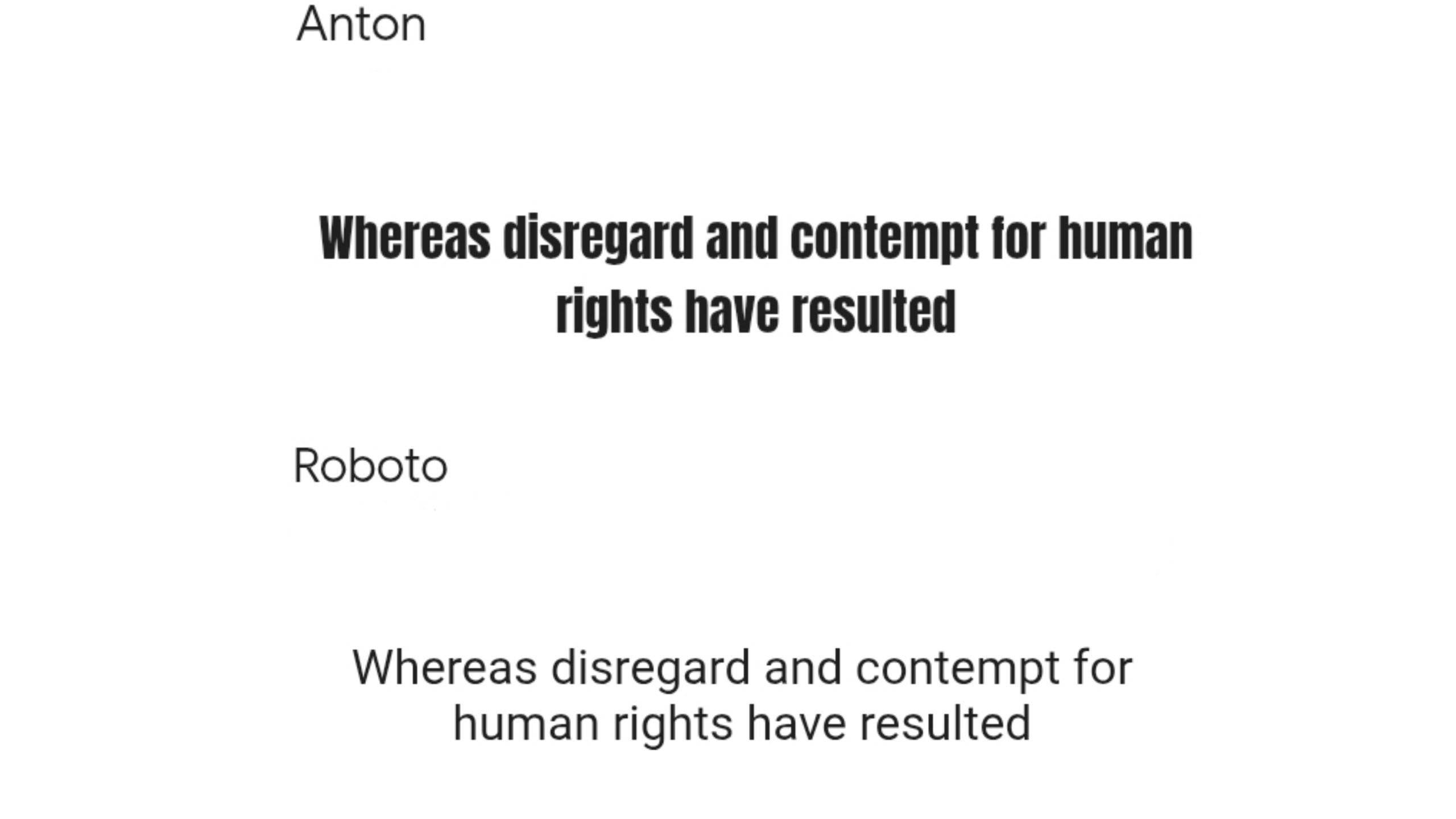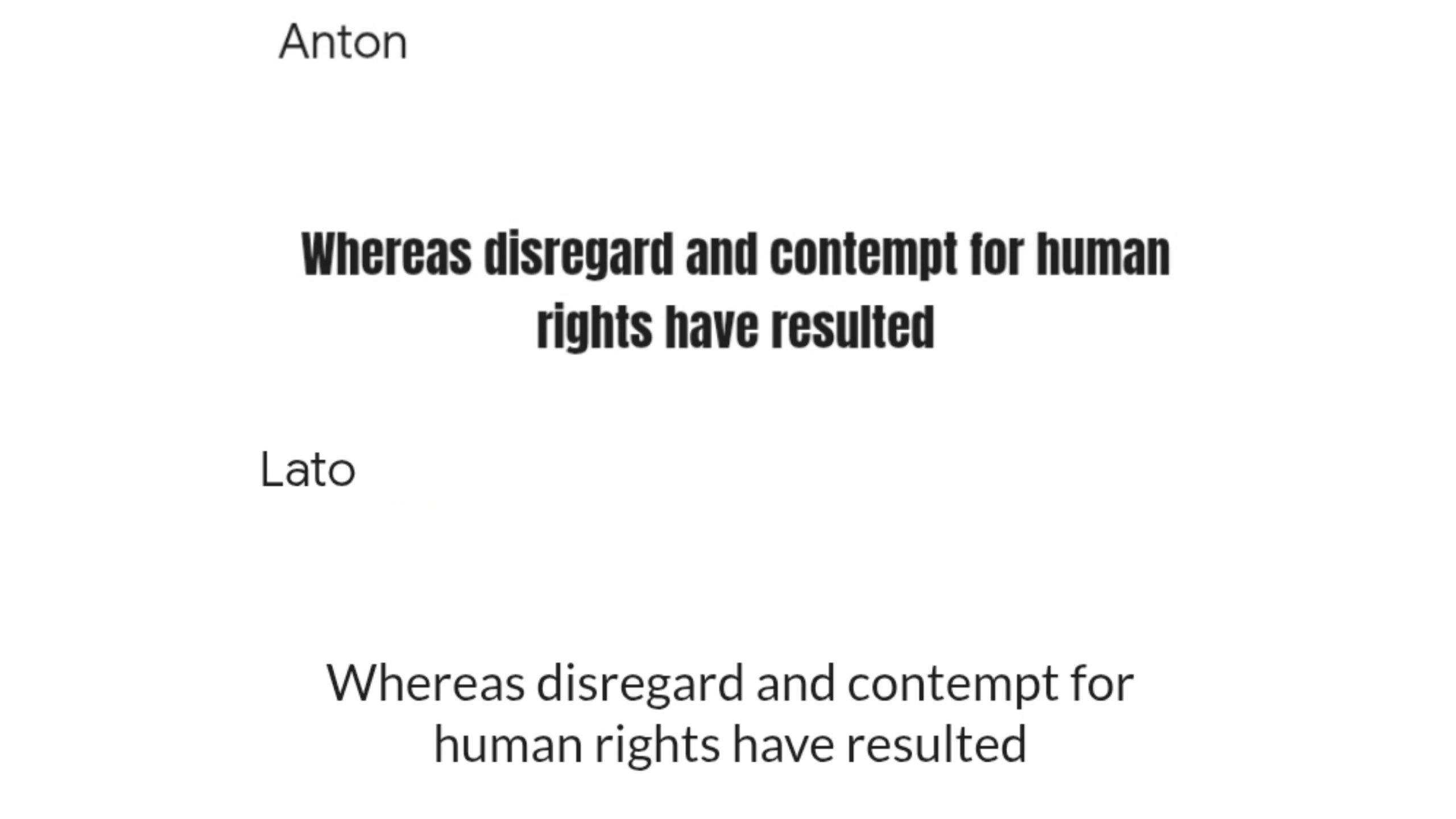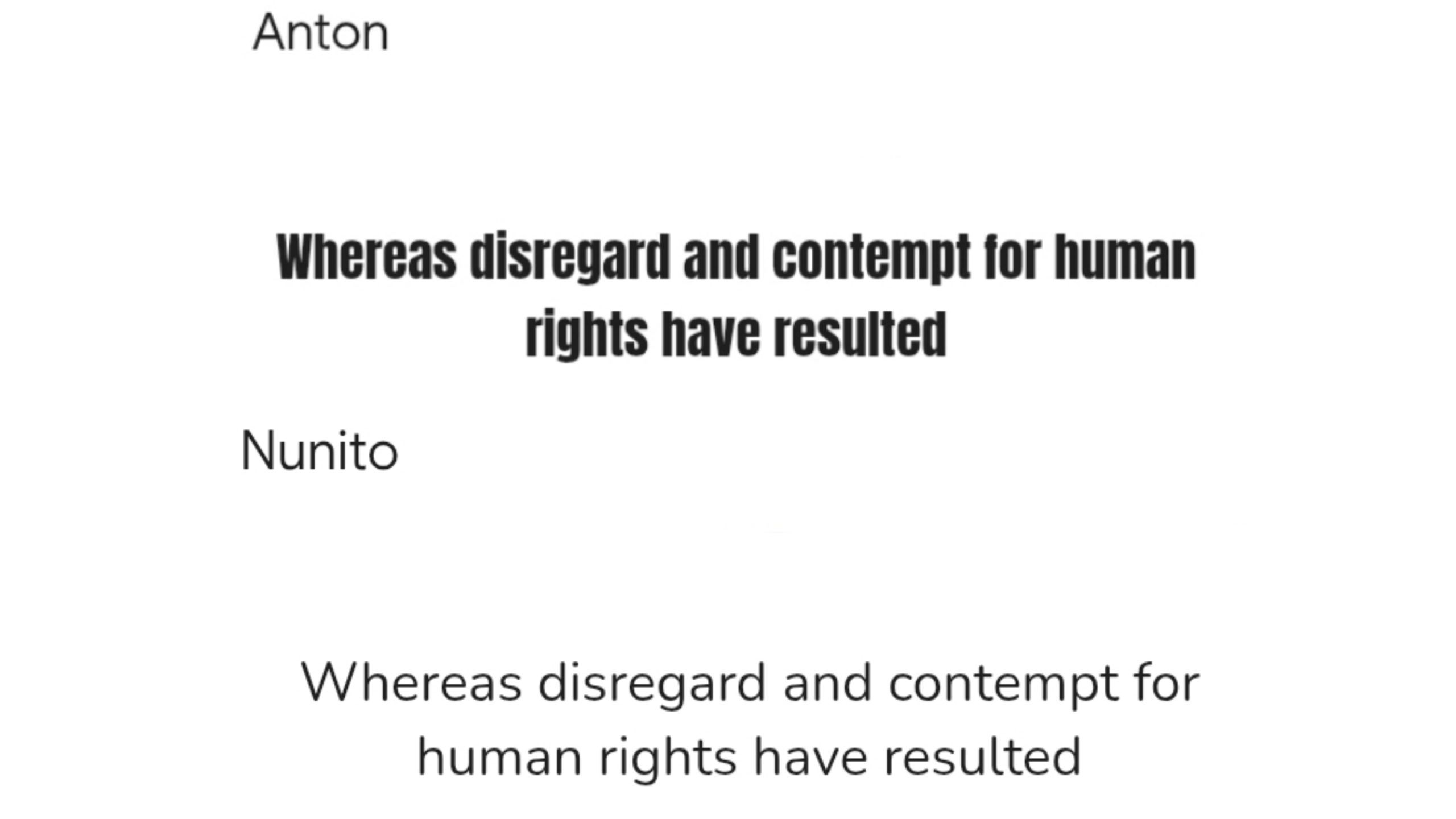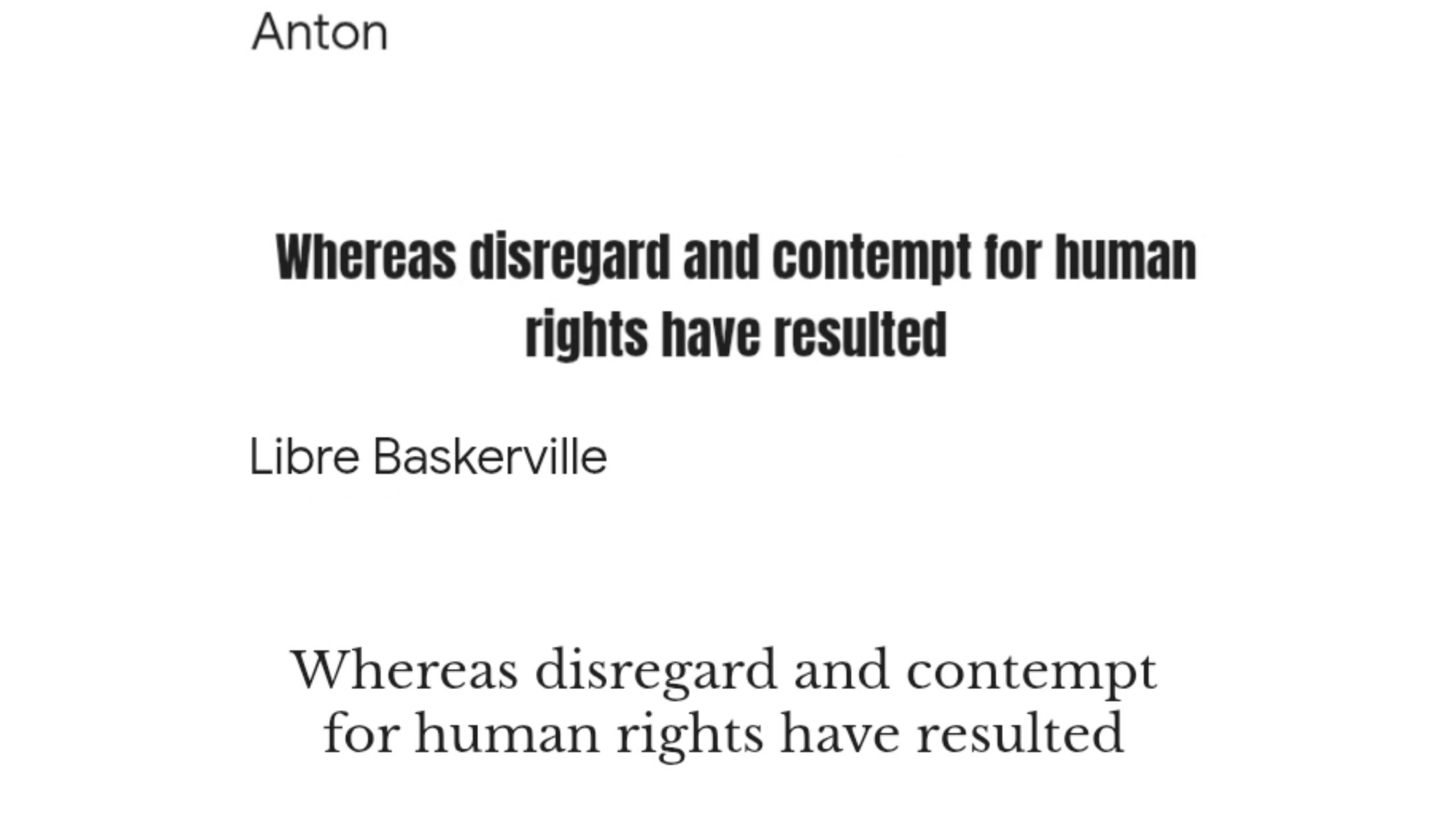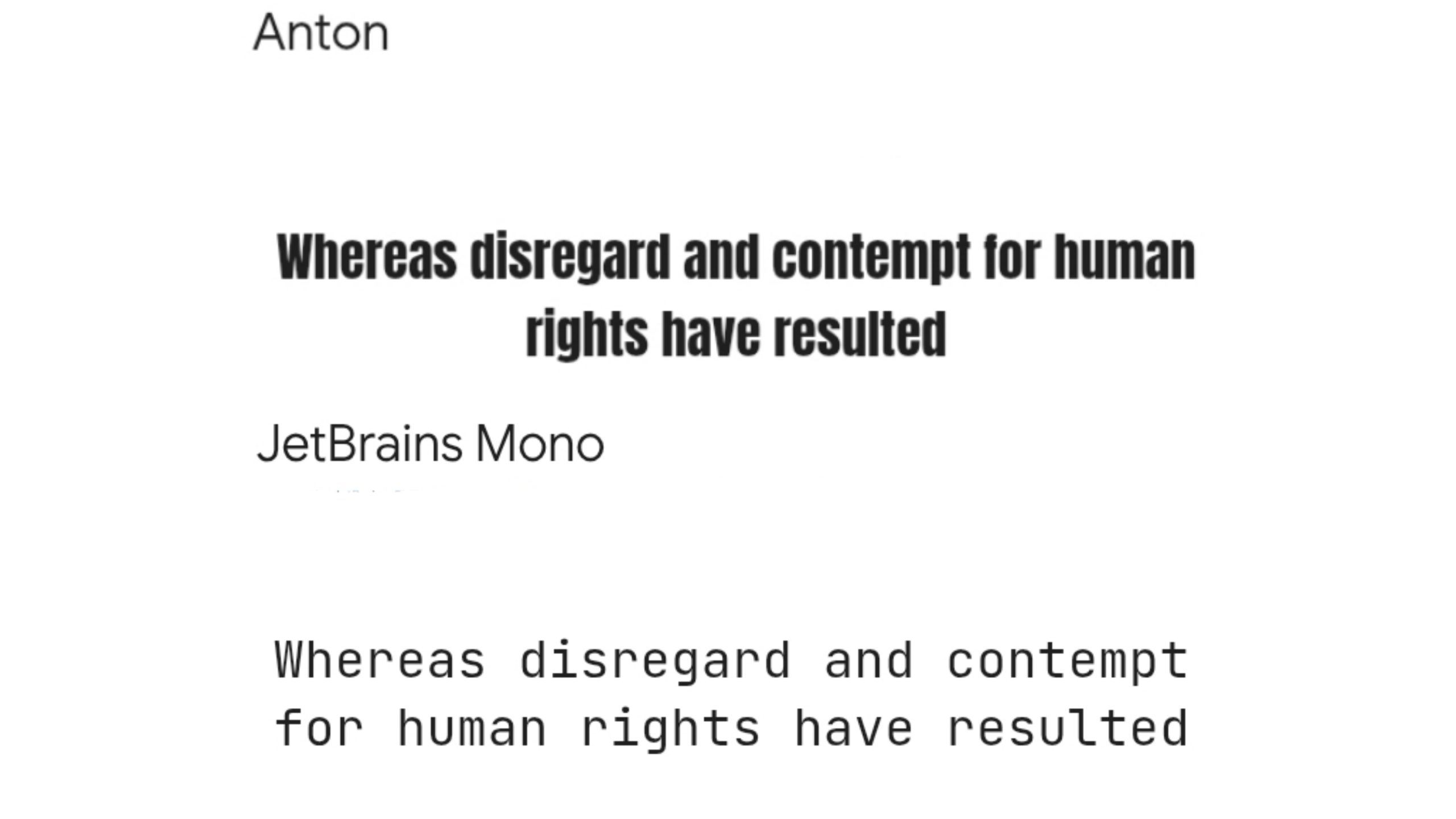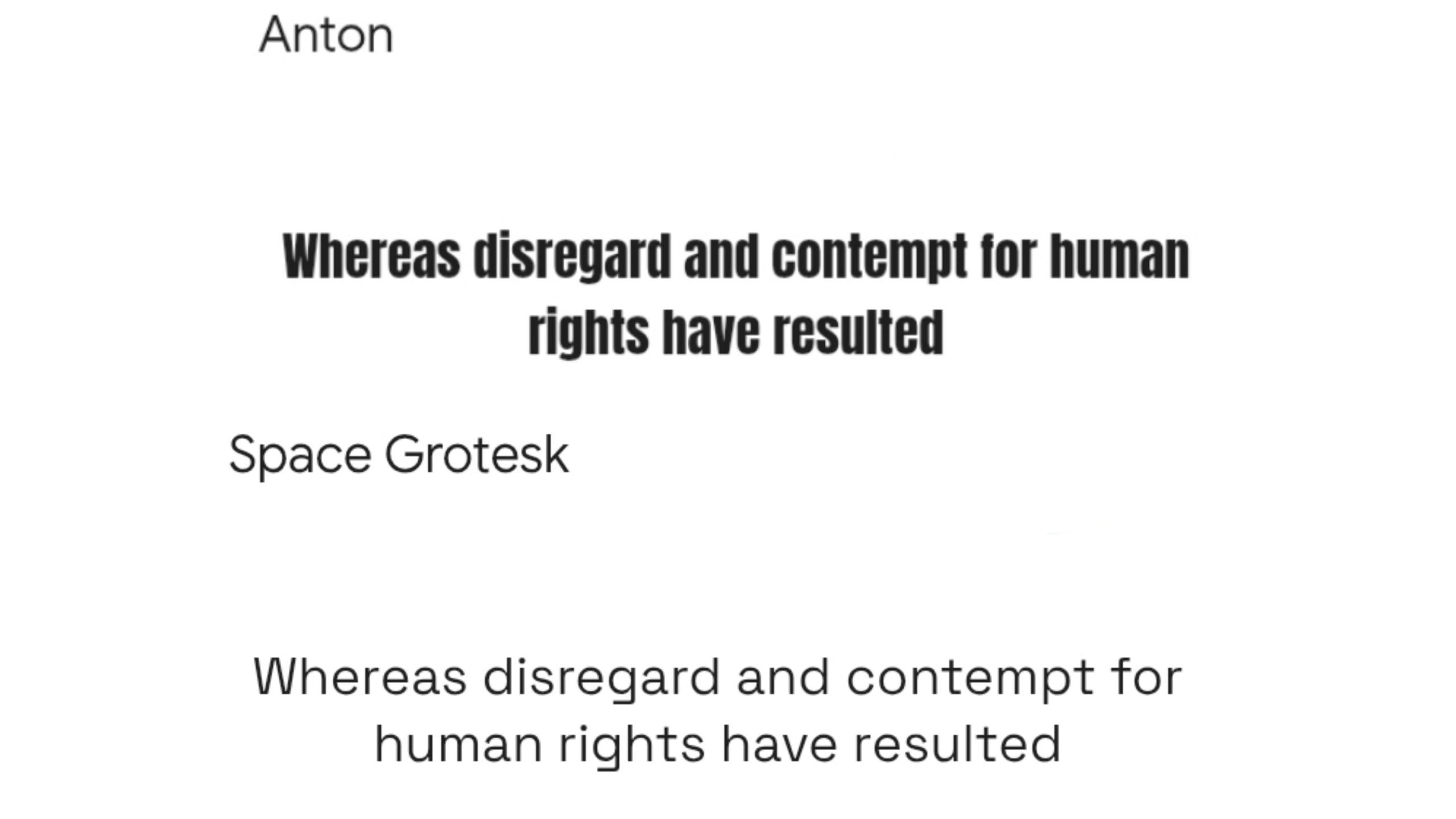
Anton is a bold sans-serif typeface designed by Vernon Adams in 2011. With its tall x-height and heavy strokes, it’s perfect for headlines. Since it’s free on Google Fonts, many designers use it widely. However, finding fonts that pair well with Anton is crucial for balance.
Luckily, several typefaces complement Anton’s bold presence beautifully. The right pairing improves readability and creates a polished look. Therefore, explore the best options for a cohesive design through the discussion below.
Key Takeaways
- Pairing Anton with fonts like Roboto, Poppins, and Montserrat ensures a balanced, professional design.
- For a modern and clean aesthetic, consider fonts like Lato and Nunito alongside Anton.
- Combining Anton with classic serifs like Libre Baskerville adds elegance and contrast to your design.
11 Fonts That Pair Well with Anton for a Balanced Look
Discover eleven fonts that pair well with Anton for websites, posters, or branding, ensuring a professional and visually striking design!
1. Roboto
Roboto is a contemporary sans-serif font created by Google. Recognized for its sleek and minimalistic design, it improves readability across different platforms. Combining Anton for headlines with Roboto for body text creates a striking visual contrast.
2. Poppins
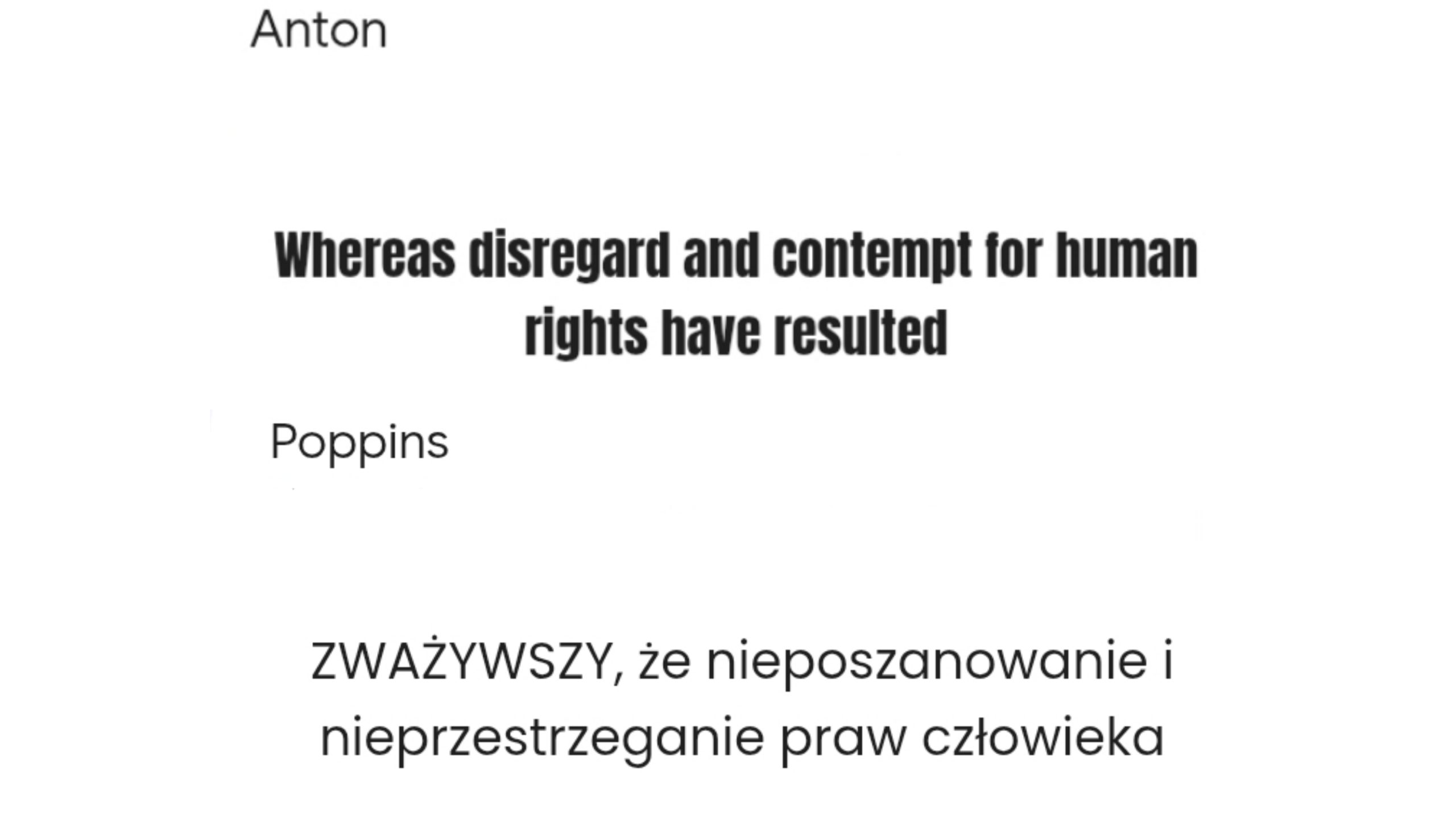
Poppins is a modern sans-serif font that is clean and versatile. Popular for its readability and elegant design, it works well in both headings and body text across various projects. Pairing Anton for headlines with Poppins for body text creates a balanced and professional design.
3. Montserrat
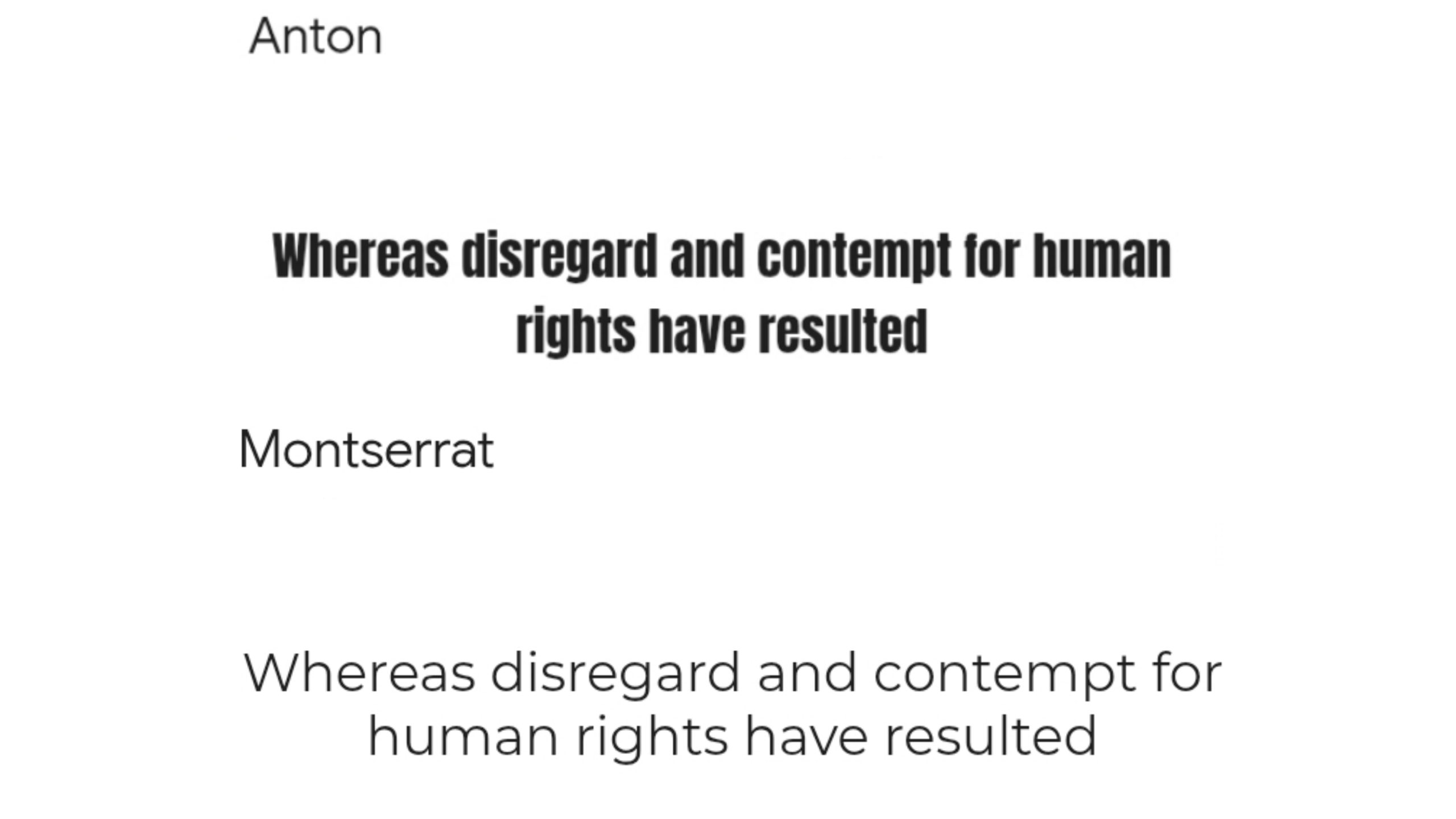
Inspired by urban typography, Montserrat is a geometric sans-serif font with clean lines and well-balanced proportions. It works well as body text when paired with Anton’s bold headlines.
This pairing is ideal for websites, magazines, and branding materials where a cohesive and contemporary aesthetic is needed. Montserrat’s modern appeal ensures clarity while maintaining a professional touch.
4. Lato
Lato is known for its warmth and stability, with semi-rounded details that make it both approachable and professional. It offers a perfect balance when paired with Anton, ensuring a readable and aesthetically pleasing layout. This combination is particularly useful for corporate websites and blogs where clarity and sophistication are key.
5. Nunito
Nunito is a harmonious sans-serif typeface featuring rounded terminals. Its warm and inviting appearance makes it an excellent choice among many fonts that pair well with Anton, particularly for body text in a wide range of design projects.
6. Libre Baskerville
Libre Baskerville is a classic serif typeface that pairs well with Anton. The contrast between Anton’s modern look and Libre Baskerville’s elegant style creates a dynamic and sophisticated design.
7. JetBrains Mono
JetBrains Mono is a monospace typeface designed for readability. Its clean and simple design contrasts nicely with Anton’s boldness, making it suitable for body text when Anton is used for headlines.
8. Space Grotesk
Space Grotesk is a modern sans-serif typeface with a geometric yet slightly humanist touch. It pairs well with Anton, offering a clean and contemporary feel while maintaining readability and visual balance. This combination works well for tech branding, editorial layouts, and web design.
9. Work Sans
Work Sans is one of the versatile fonts that pair well with Anton that complements the impactful nature. Its refined design ensures clarity and professionalism, making it ideal for digital and print applications like UI design, marketing materials, and corporate branding.
10. Halva
Halva is a stylish and modern sans-serif typeface that pairs well with Anton’s bold and impactful headlines. Its clean, slightly rounded letterforms provide excellent readability while adding a touch of warmth and friendliness. This combination is ideal for branding, editorial layouts, and digital designs that require a contemporary yet approachable feel.
11. Night Mango
Amsterdam Serif is an elegant and stylish serif font that contrasts well with Anton’s bold structure. This combination adds a refined touch, making it perfect for luxury branding, invitations, and editorial designs.
Beyond Anton: Find the Perfect Complement for Your Project!
Finding the right fonts that pair well with Anton can elevate your design to be more dynamic and engaging. Whether you need a bold contrast or a subtle compliment, the right combination ensures your project stands out. Experimenting with different typefaces can help you achieve the perfect balance of style and readability.